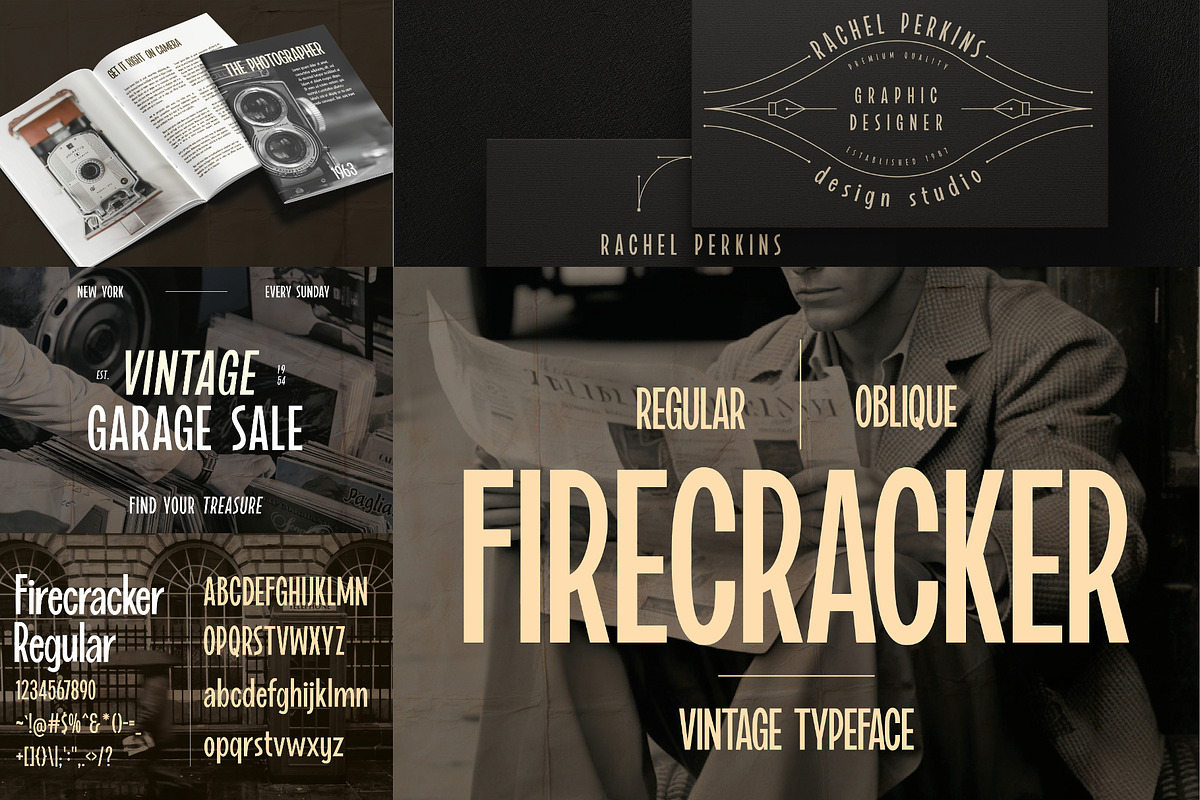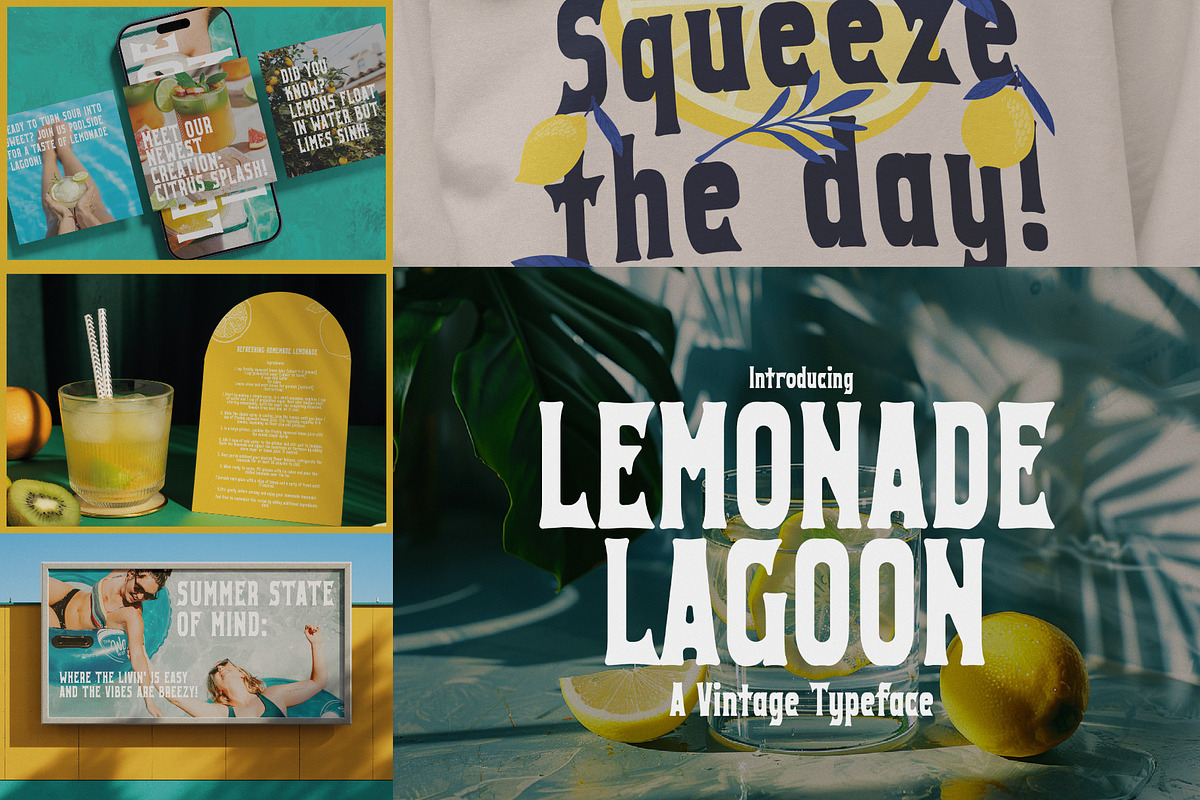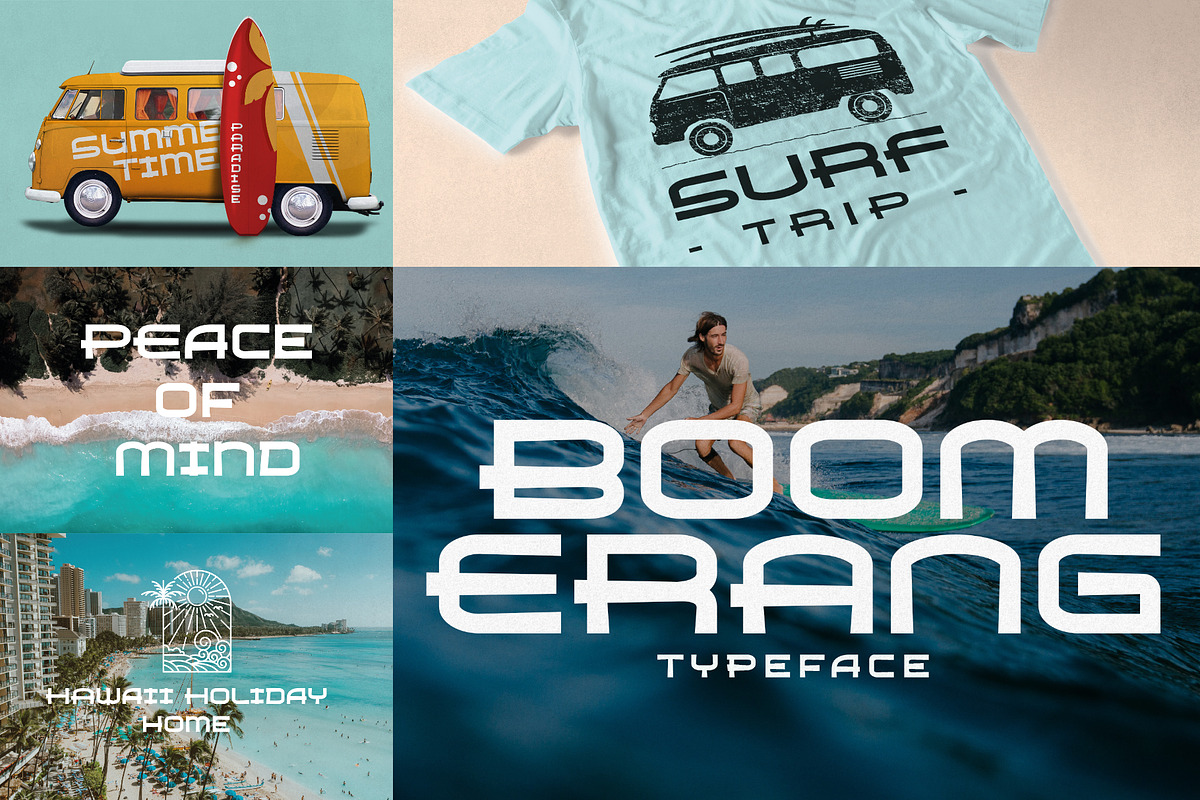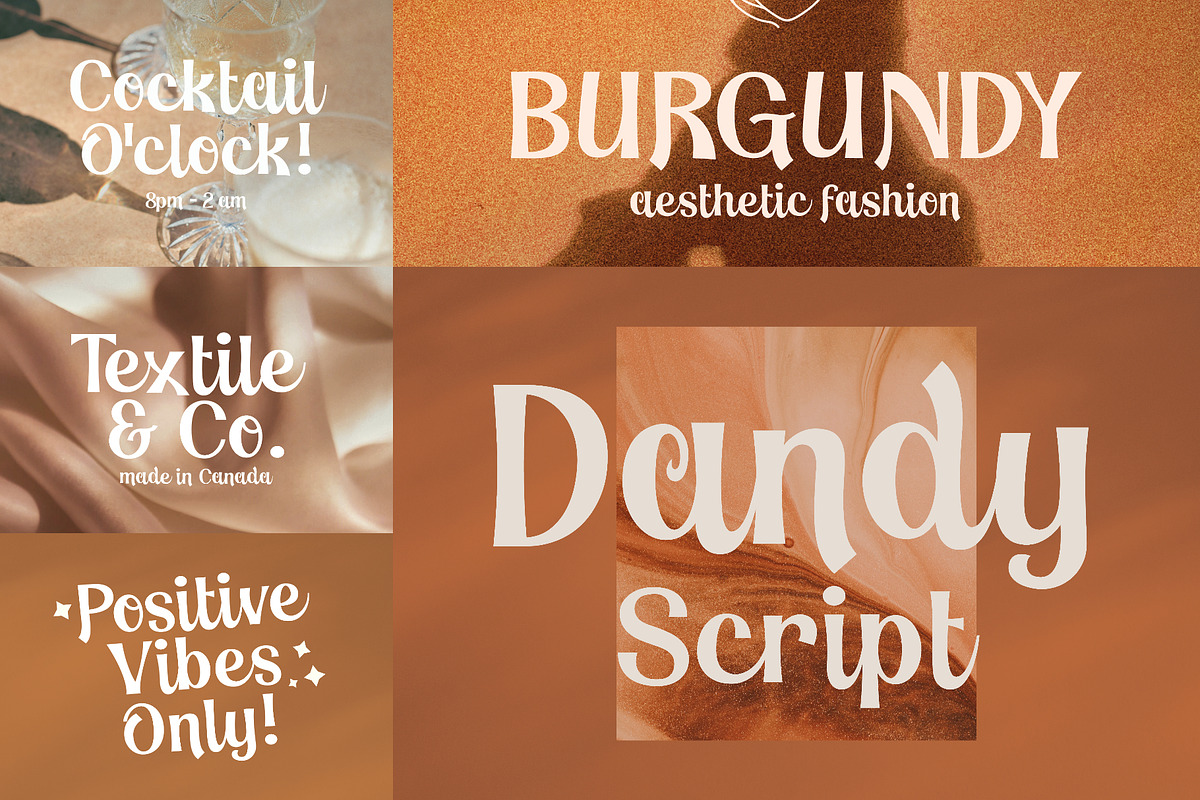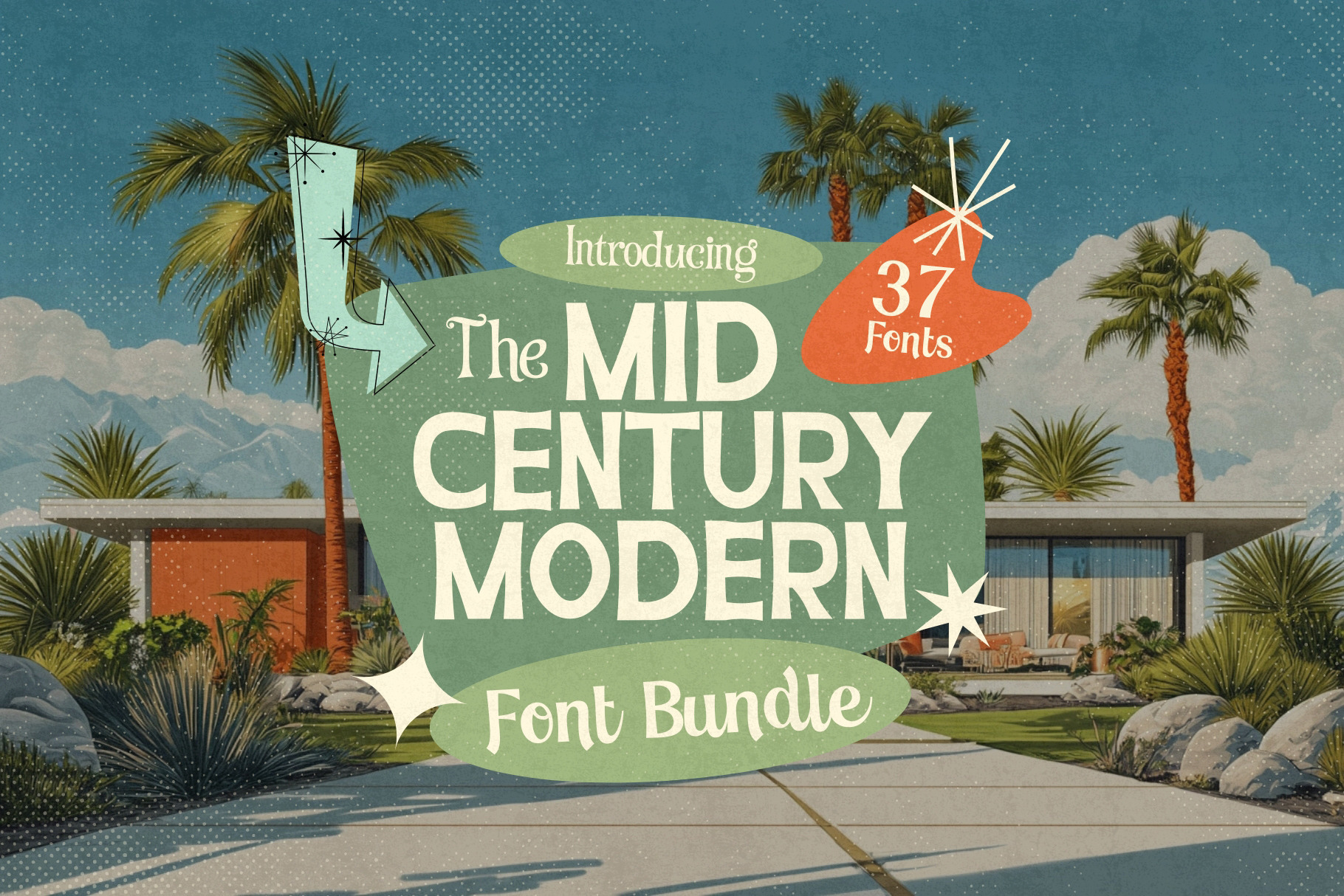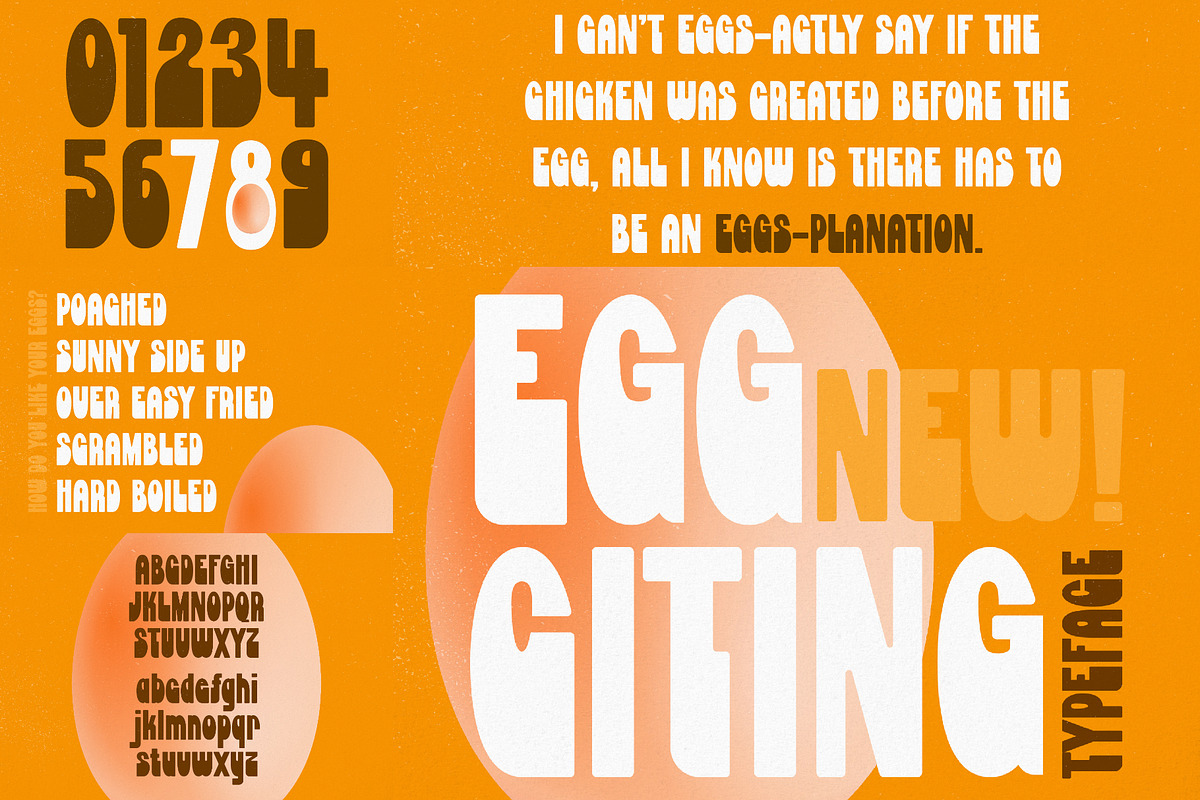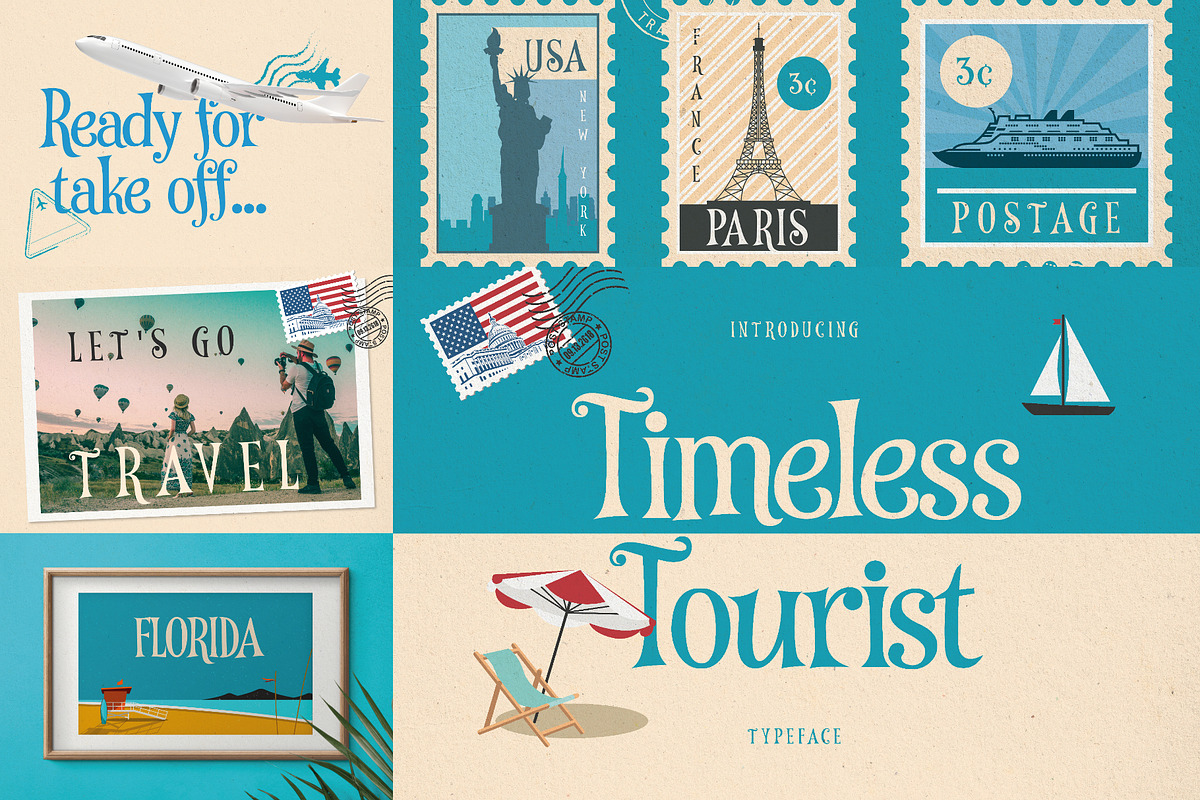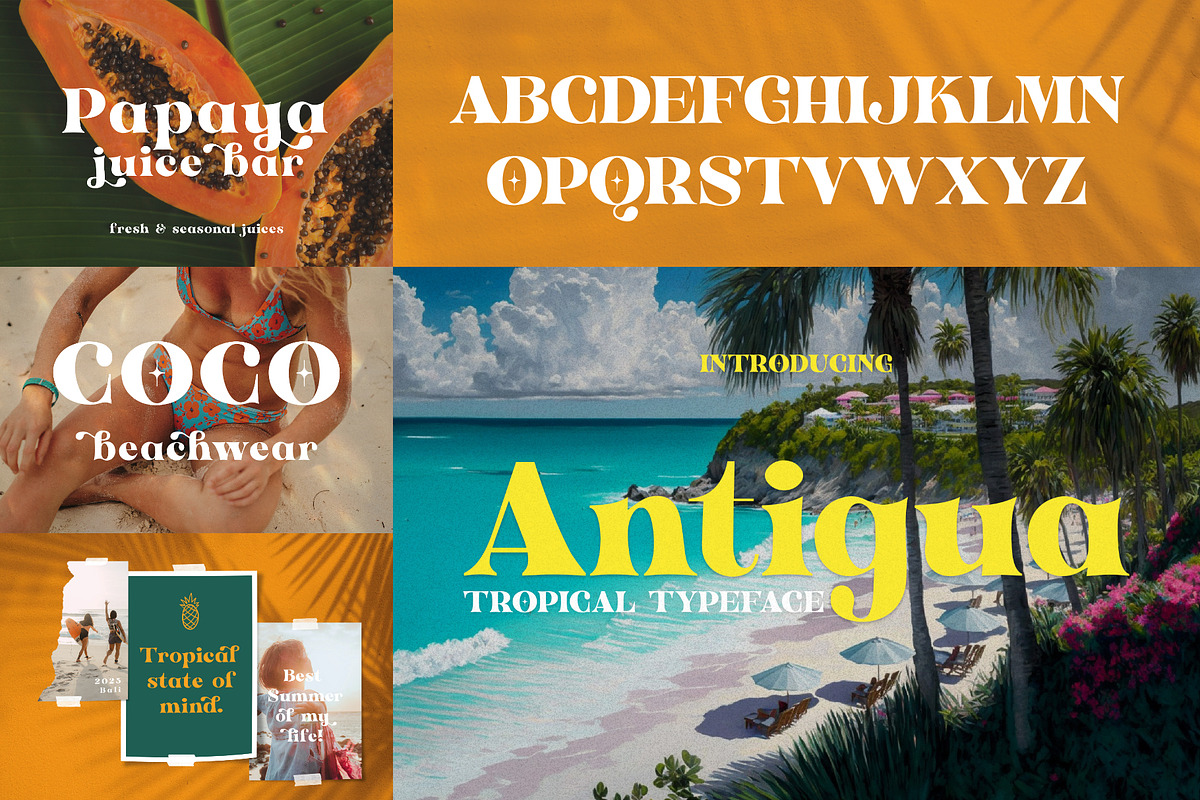
Mid Century Modern Font Bundle
Step back in time with the Mid-Century Modern Font Bundle, a stunning collection of 37 handpicked typefaces that embody the sleek, stylish, and playful aesthetics of the 1950s and 1960s. Perfectly capturing the spirit of retro signage, advertising, magazine covers, and cocktail lounge menus, this bundle is your go-to toolkit for recreating the golden age of design.
Why You’ll Love This Bundle:
- ✅ Authentic Mid-Century Aesthetic – Inspired by vintage print ads, diner menus, sci-fi posters, and mod fashion, these fonts radiate nostalgia.
- ✅ Diverse Styles – Includes elegant scripts, quirky hand-drawn lettering, bold display fonts, and atomic-age sans-serifs.
- ✅ Perfect for Retro Projects – Ideal for branding, packaging, logos, posters, album covers, book design, and beyond.
- ✅ Meticulously Crafted – Each typeface is designed to deliver a crisp, professional, and period-accurate look.
From the neon glow of Googie diners to the refined charm of Mad Men-era advertising, the Mid-Century Modern Font Bundle is a must-have for any designer looking to revive the past with style.